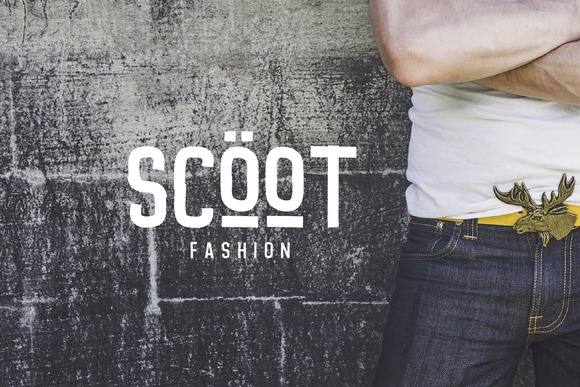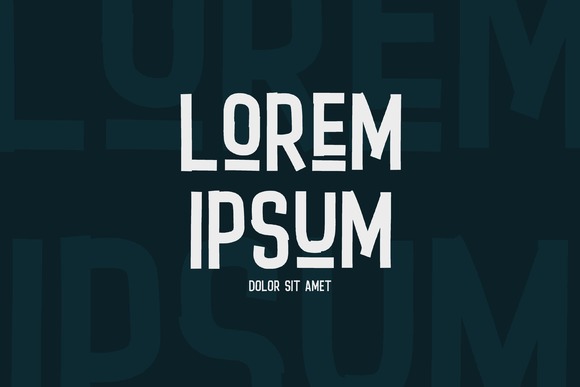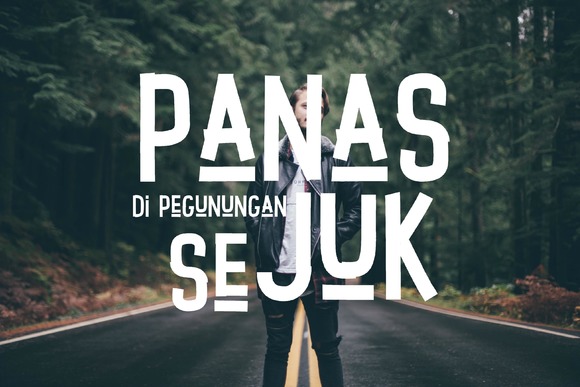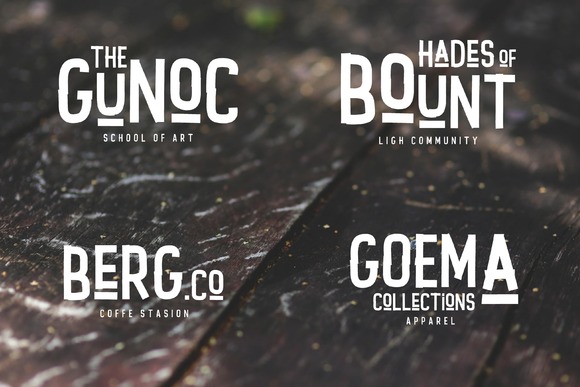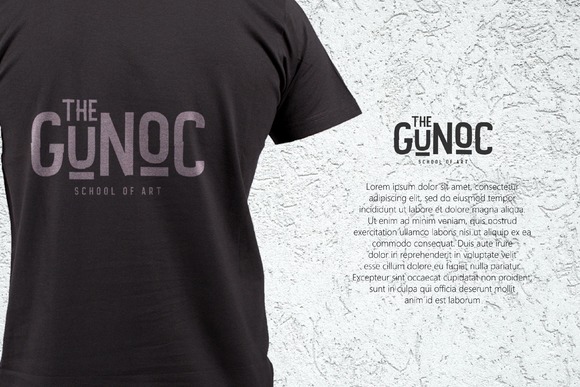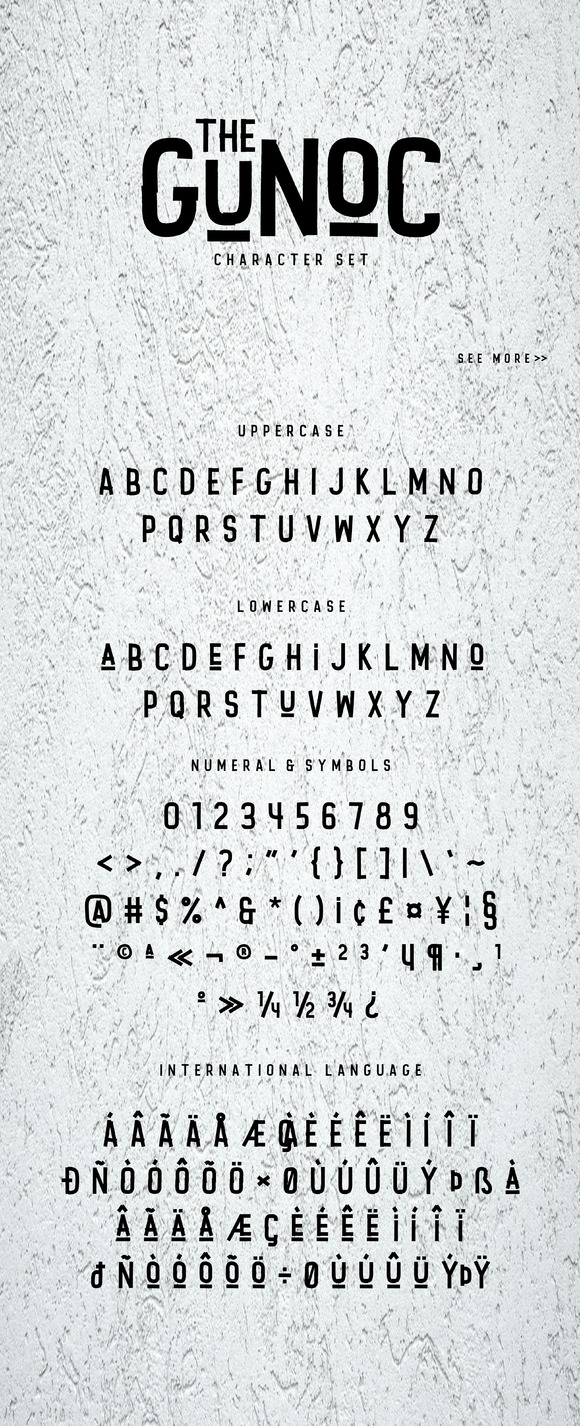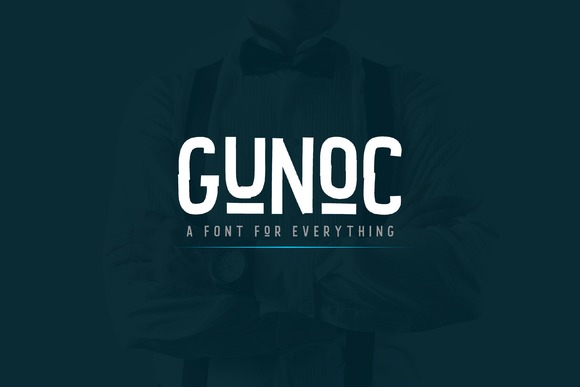
Gunoc Display Font
Introducing a new display vintage font with tons of cool characters, symbols, and OpenType Features. GunocTypeface is perfect for quotes, logos, apparel, advertising, wedding invitations and packaging design.